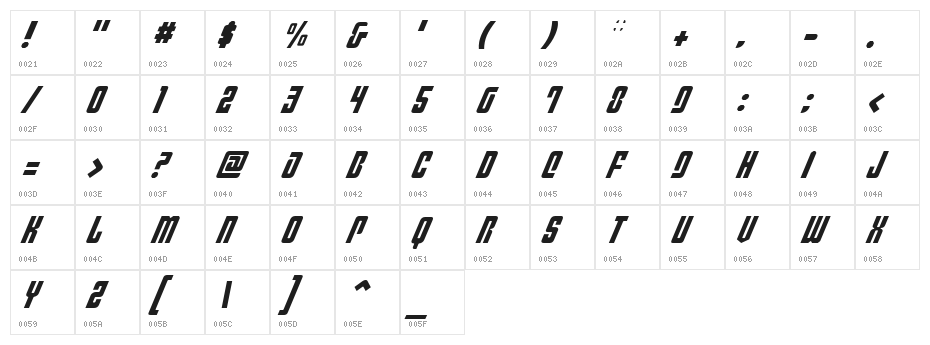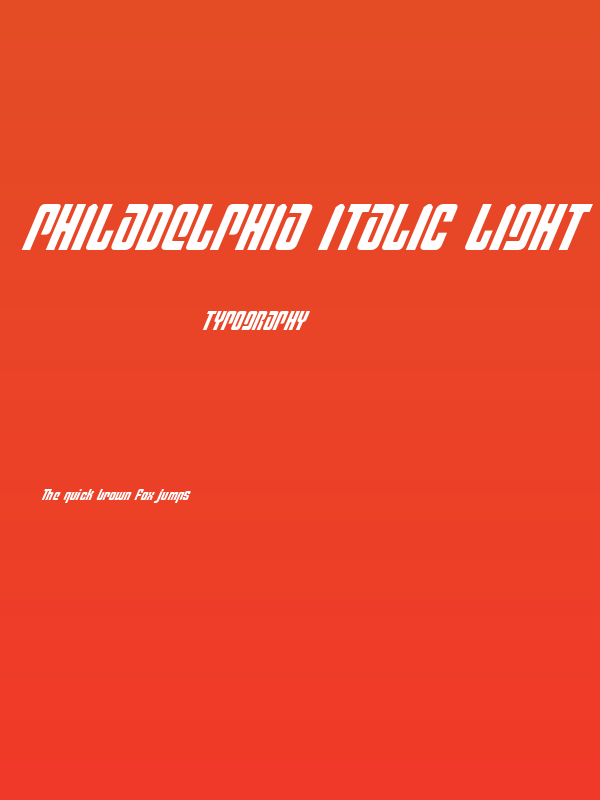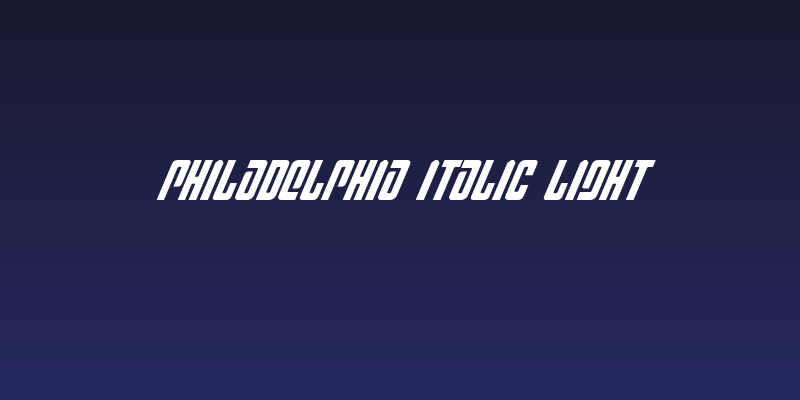
Philadelphia Italic Light Font
Philadelphia Italic Light Description
This font features a bold, italicized style with a strong, dynamic presence. The characters are sharply angled, giving a sense of motion and energy. The strokes are thick and consistent, providing a robust and impactful appearance. The uppercase and lowercase letters maintain a uniform slant, enhancing the italic effect. The numbers and special characters follow the same stylistic cues, ensuring a cohesive look across all glyphs. The overall design is modern and assertive, making it suitable for attention-grabbing applications.
Proposed ProjectsIdeal for sports branding, dynamic posters, and modern advertising campaigns.